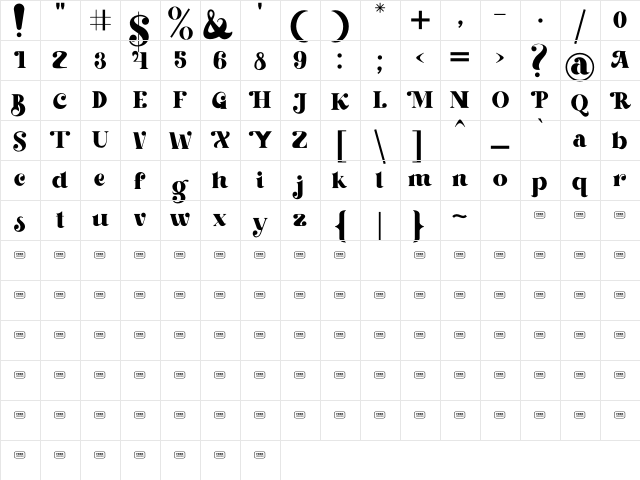
Beachfly Free Trial Regular
Foundry: typefactory
Designer: typefactory
Complete Beachfly Free Trial Regular glyph index. Displaying only characters natively supported by Beachfly Free Trial Regular font.
Design Context for Beachfly Free Trial
Beachfly Free Trial is a composed and adaptable typeface that performs quietly and consistently across a wide range of design contexts.
Who designed the Beachfly Free Trial Regular font?